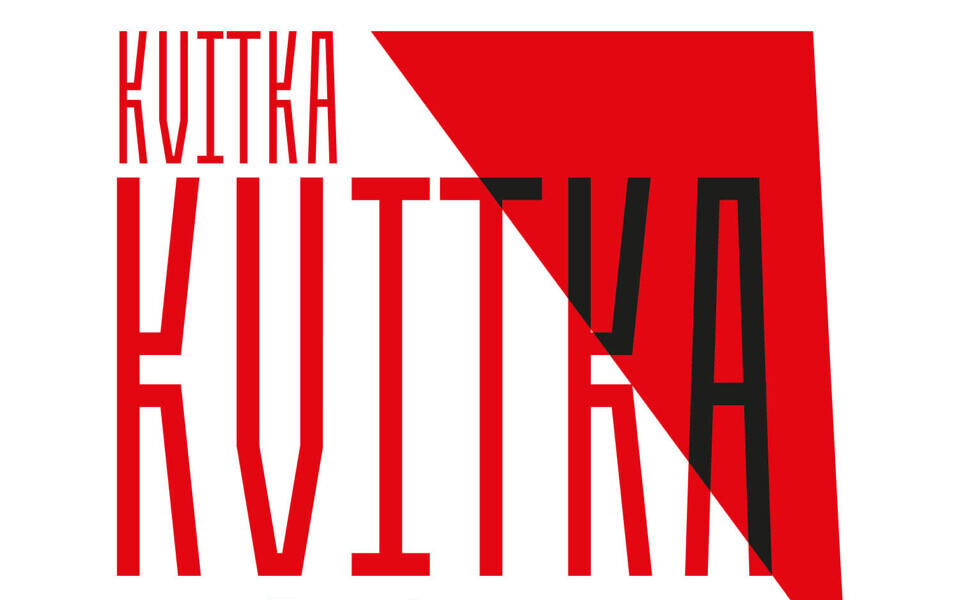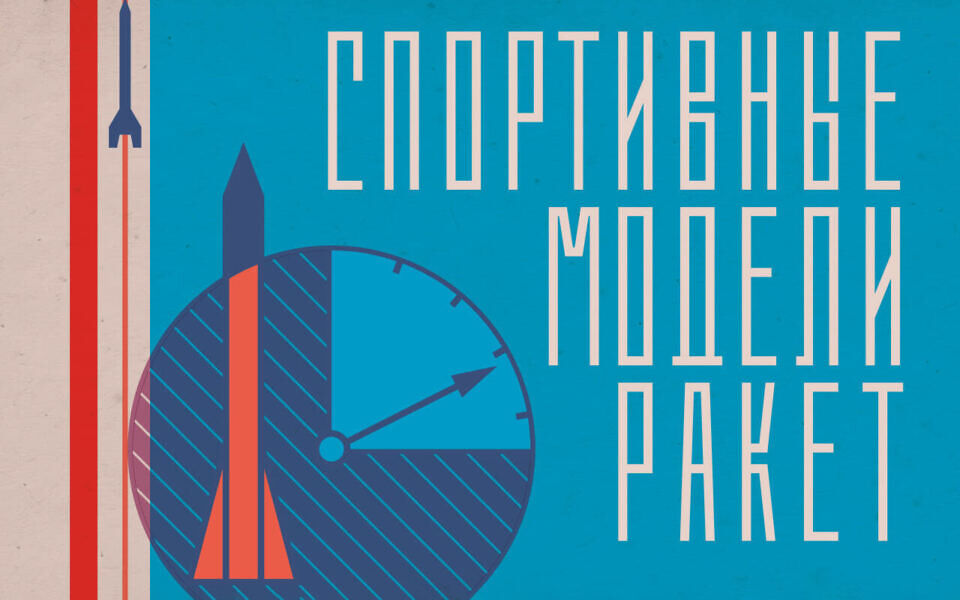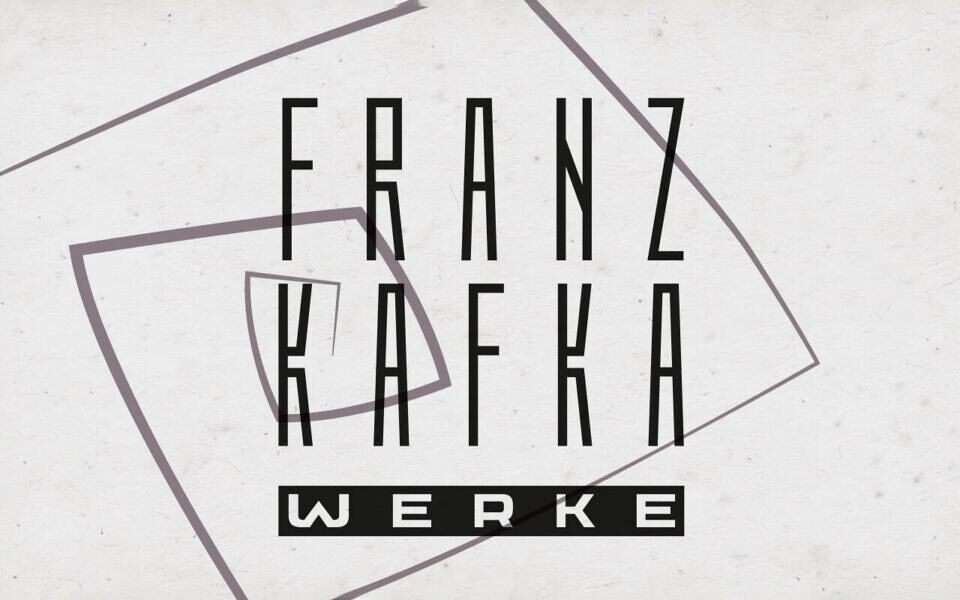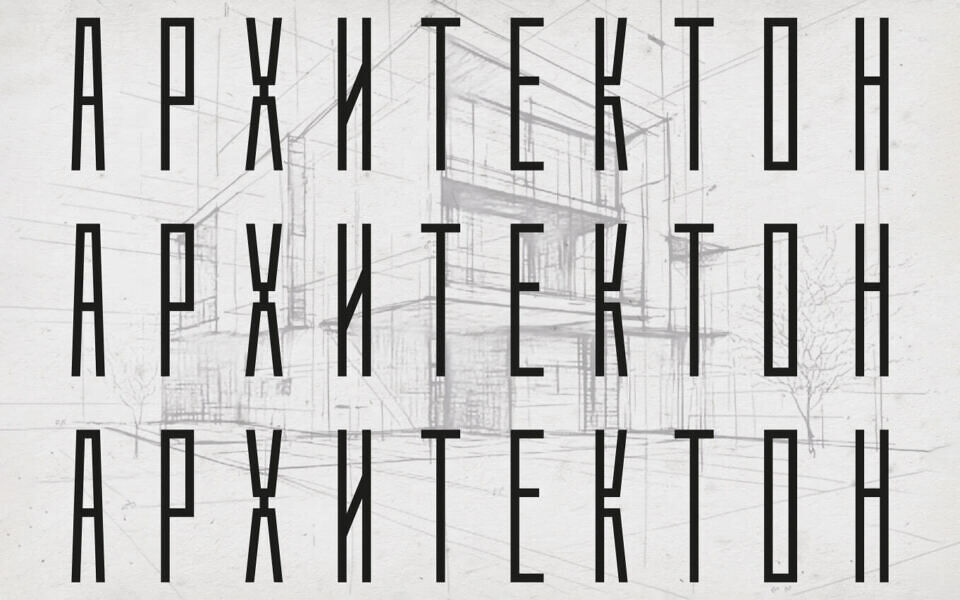
Kvitka SP Font
Kvitka SP is a narrow, rigid display typeface with a strong sense of verticality and symmetry, reminiscent of the constructivist experiments of the early 20th century.
It feels like a closed system, a symbol of the bureaucratic labyrinth where the individual dissolves into the structure. Kvitka SP is well-suited for logos, posters, and headlines related to architecture, modernism, philosophy, and the theme of inner alienation.